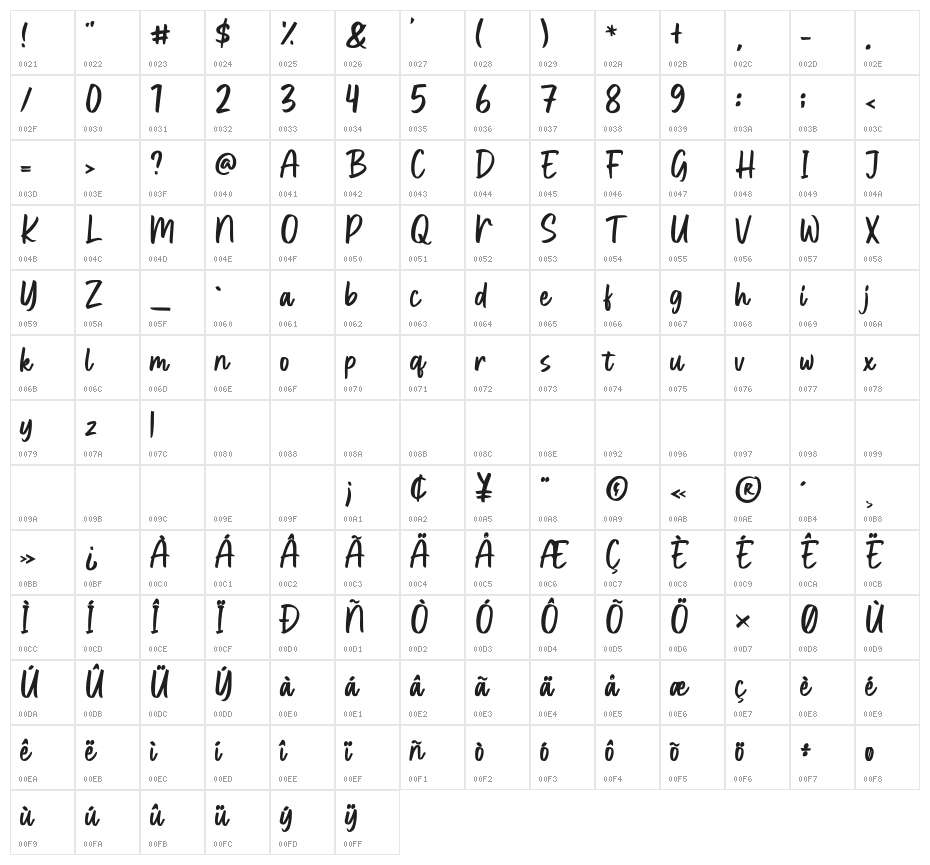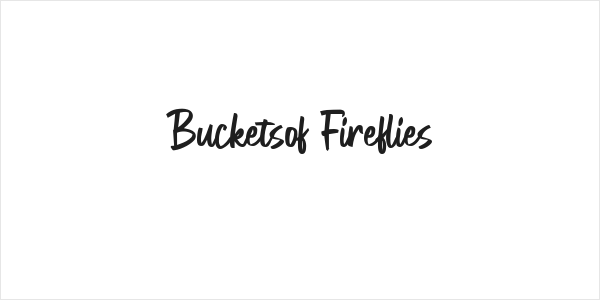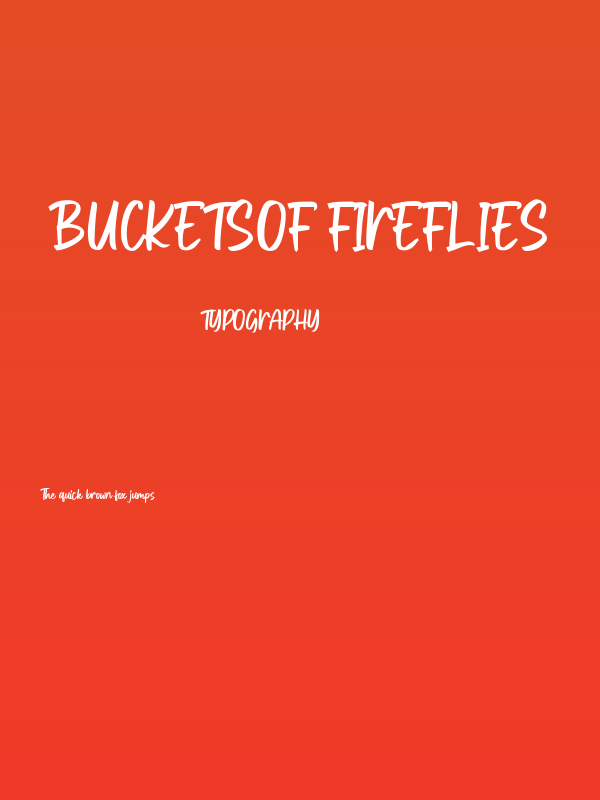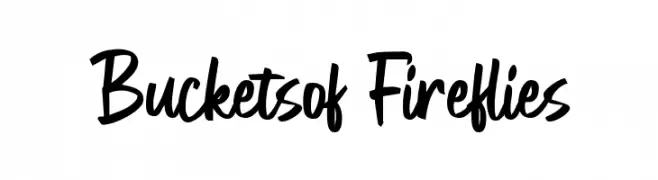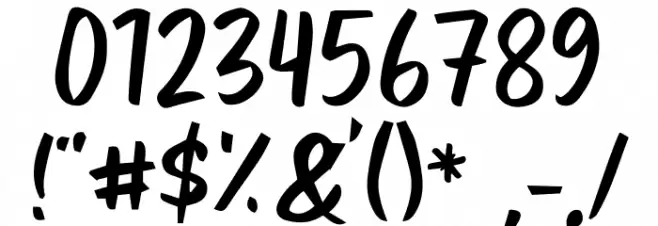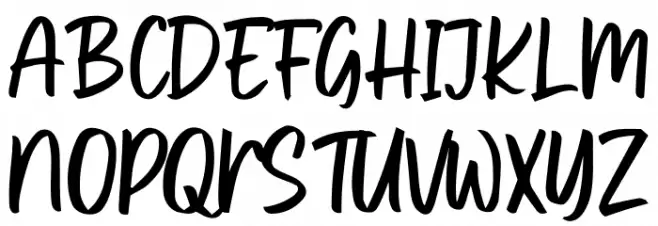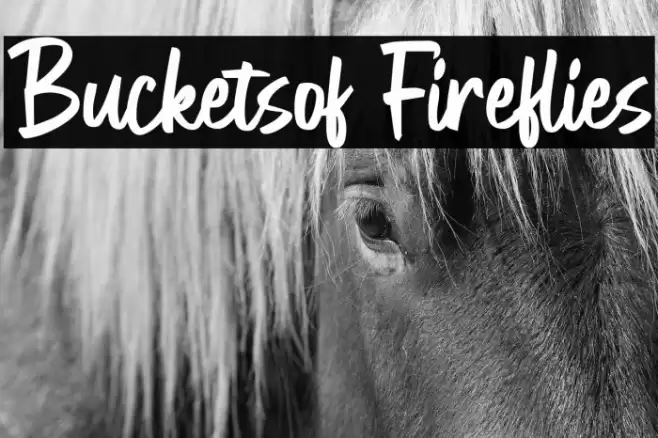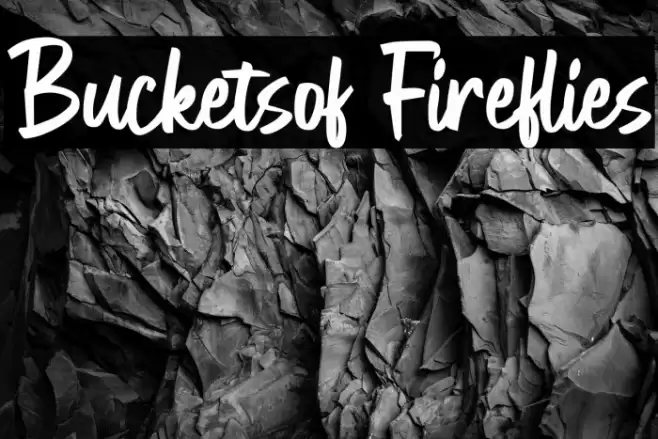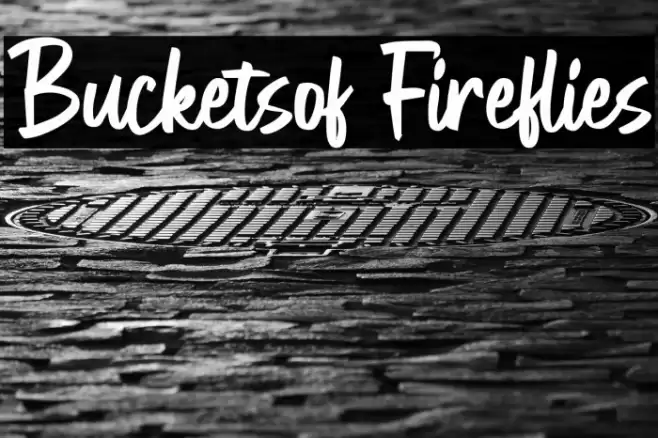
Bucketsof Fireflies Font
Bucketsof Fireflies Description
A casual, handwritten script font with a playful and friendly appearance, featuring slightly irregular strokes and a smooth flow.
| Overall Style | Casual, Friendly, Handwritten |
| Use Case | Headlines, Body text, Logos, Invitations |